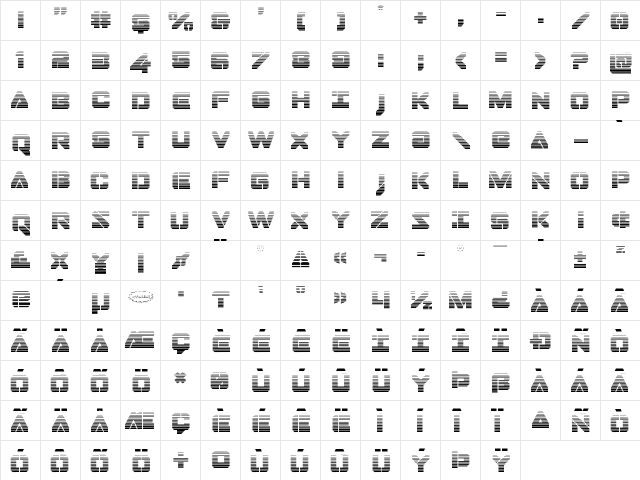
Domino Jack Gradient Regular
Design Context for Domino Jack Gradient Typeface
Domino Jack Gradient is a composed and adaptable typeface that performs quietly and consistently across a wide range of design contexts.